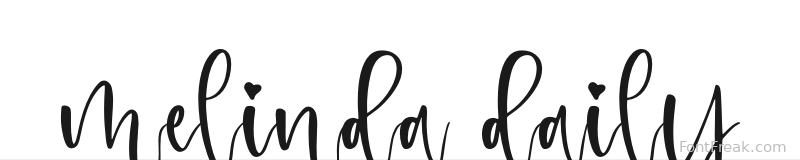
melinda daily Italic
melinda daily
The Melinda Daily Italic font by Perspectype Studio is a captivating script typeface that exudes elegance and charm. This font features a fluid, cursive style characterized by its graceful strokes and playful curves. The stroke weight varies subtly, creating a visual contrast that adds depth and personality to each letter. The spacing is thoughtfully designed to maintain readability while enhancing the overall aesthetic appeal, making it suitable for various design applications.
Melinda Daily Italic is an ideal choice for a range of use cases, including wedding invitations, where its romantic flair can set the tone for a special day. It also shines in the realm of branding for boutique shops, where its unique style can help create a memorable identity. Additionally, the font can be effectively utilized in restaurant menus, adding a touch of sophistication that enhances the dining experience. For content creators, incorporating this font in social media graphics or blog headers can elevate the overall presentation and attract attention.
The target audience for Melinda Daily Italic includes graphic designers looking for a distinctive typeface to enhance their projects, small business owners aiming to create a unique brand identity, and content creators who desire a stylish font to capture their audience's interest. This font is offered as freeware, making it accessible for anyone seeking to enrich their design toolkit.
What sets Melinda Daily Italic apart is its harmonious blend of elegance and versatility, enabling it to adapt seamlessly across various contexts while maintaining a strong visual identity. This makes it a valuable addition to any designer's repertoire. For those interested, the melinda daily Italic font free download is available, allowing users to explore its beauty in their creative endeavors.